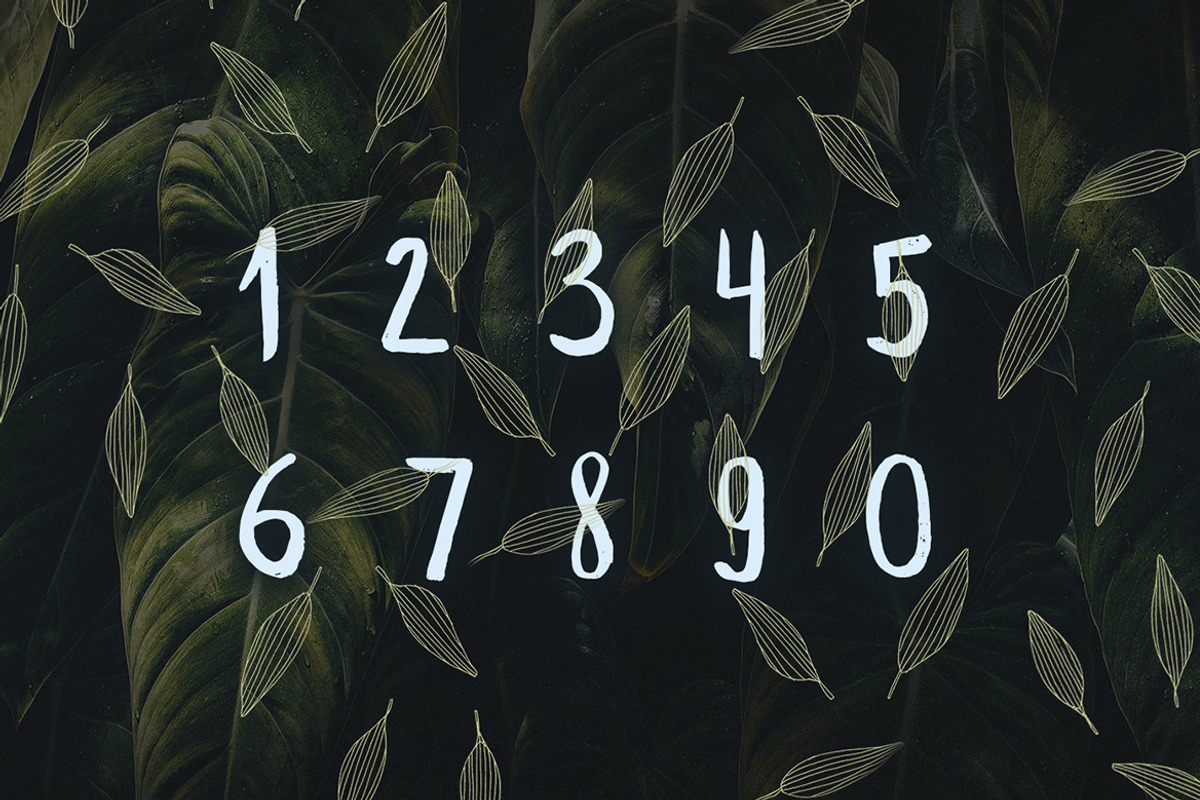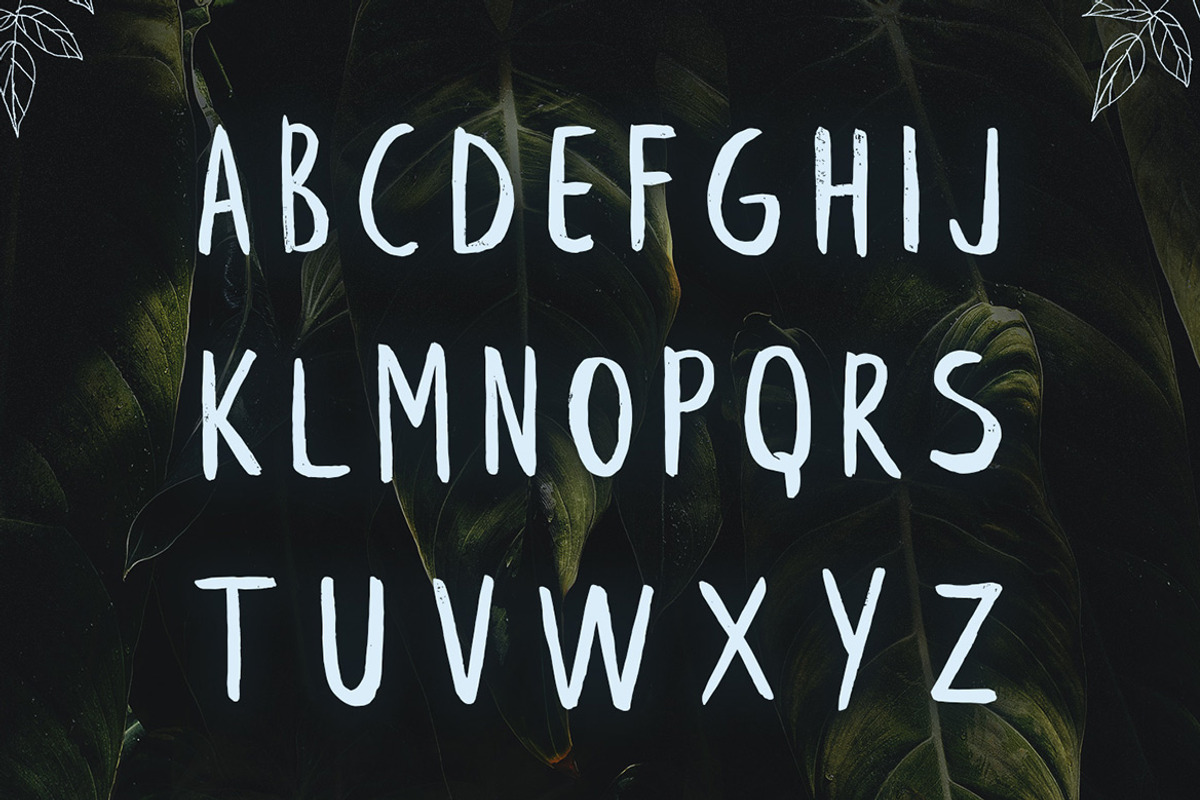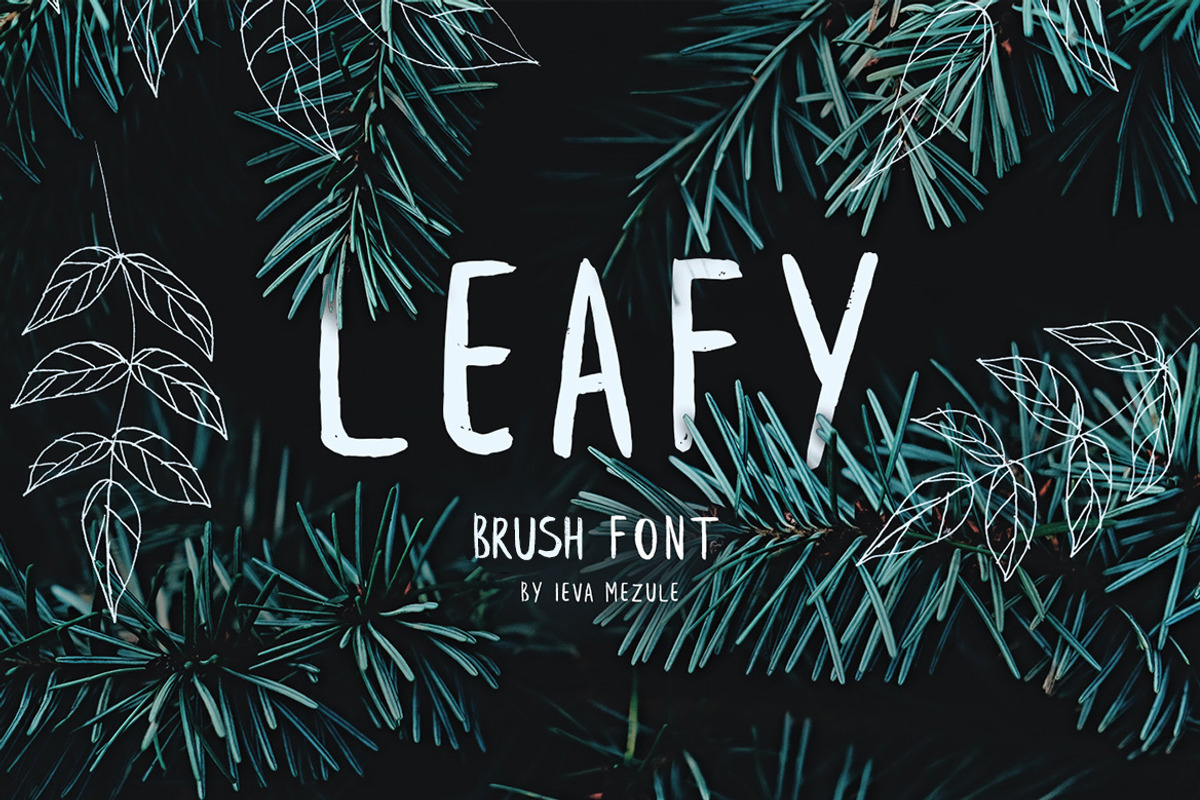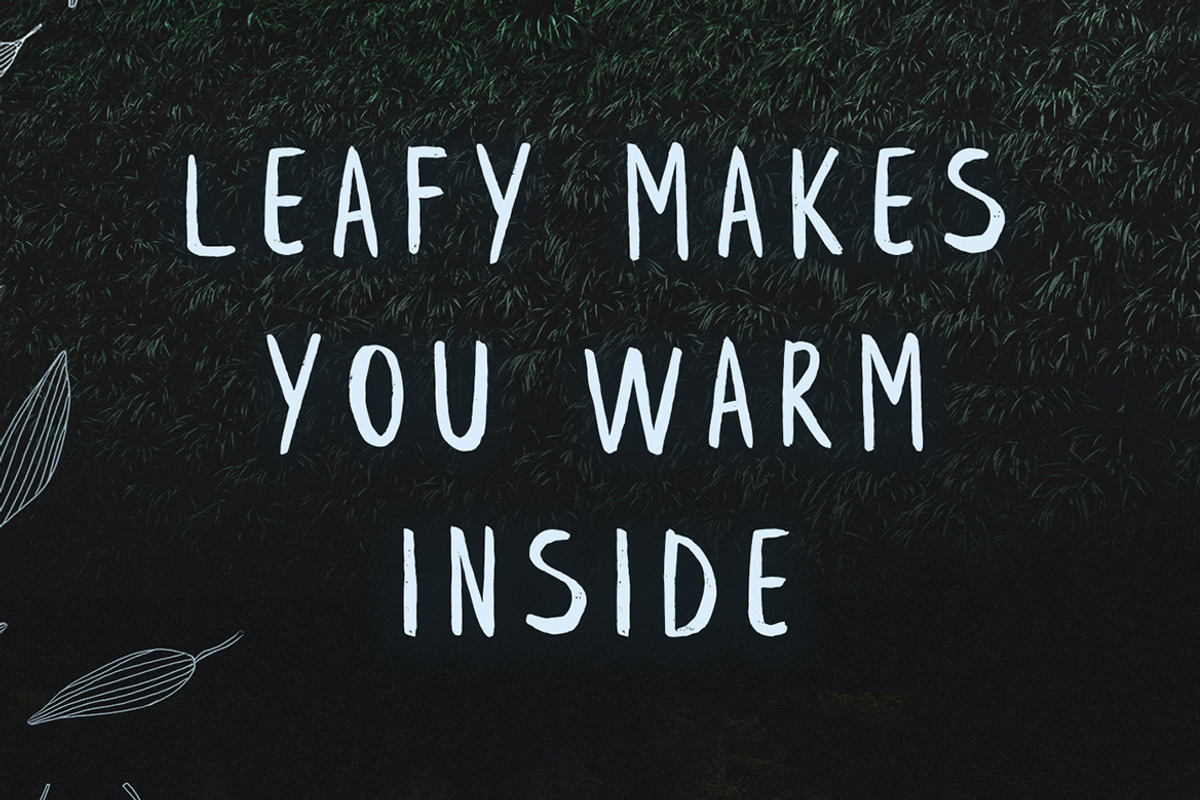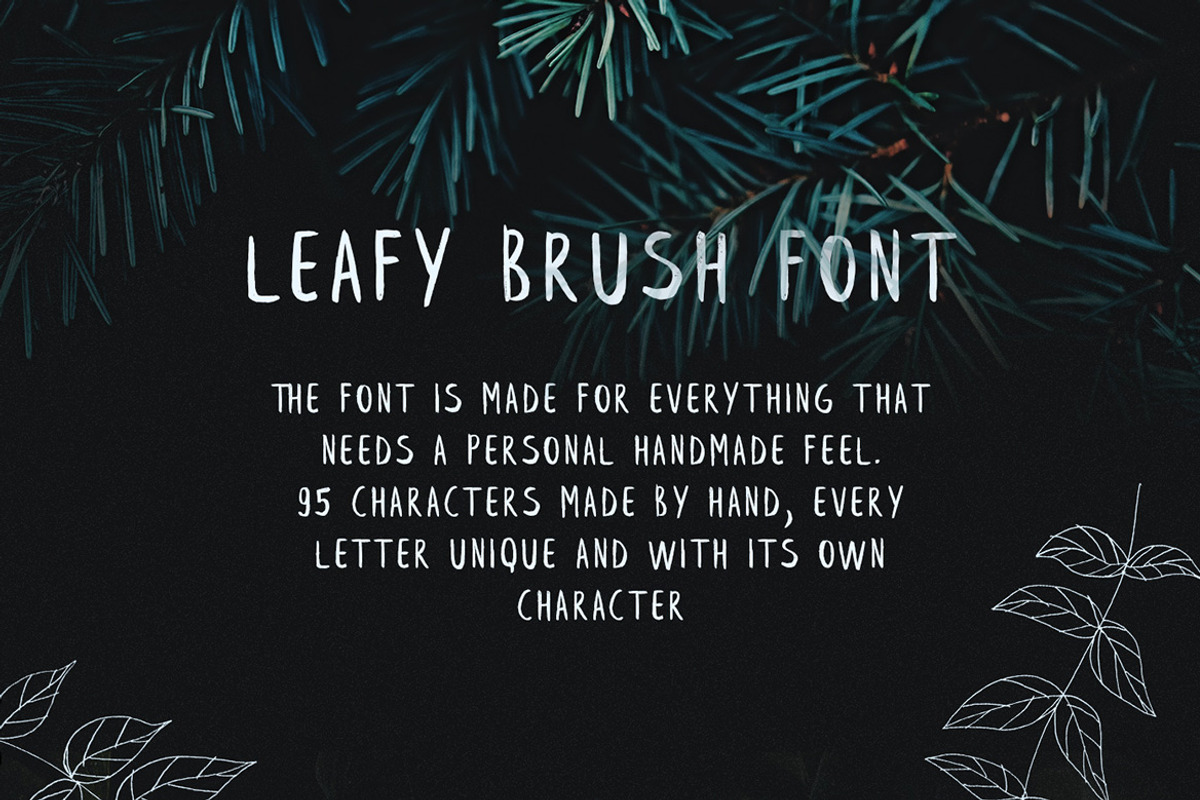
Leafy Brush Font
Leafy Brush Font by Wild Ones is a font selected for branding, posters, packaging, typography.
- It features 95 characters and has all the basic glyphs.
Leafy Brush Font by Wild Ones fits naturally into Branding, posters, packaging, typography.